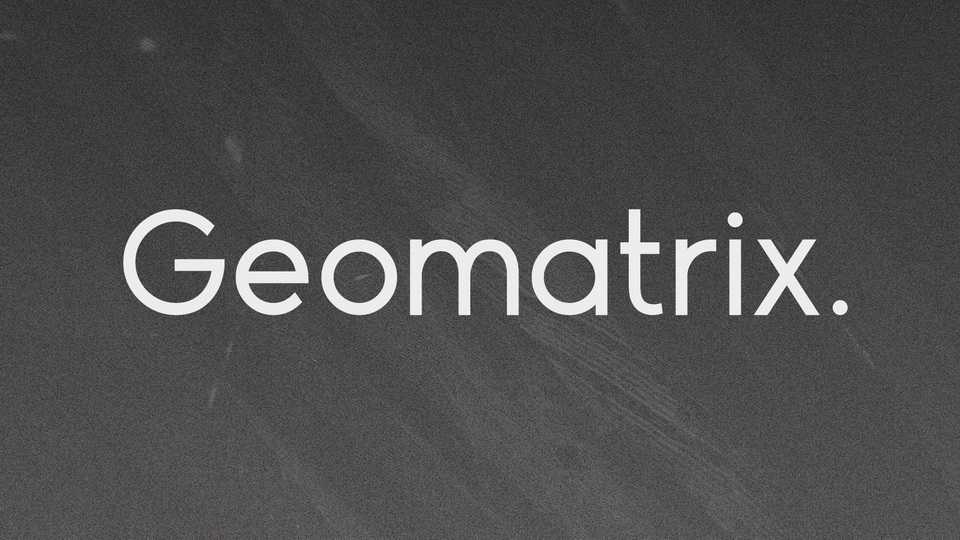
Download Geomatrix typeface, a geometric sans serif font family that dares the modernism and the harmony of the curves. Geomatrix has very open terminals that makes this font family elegant, friendly and contemporary.